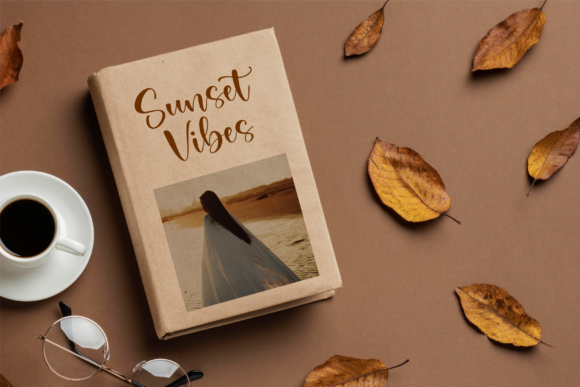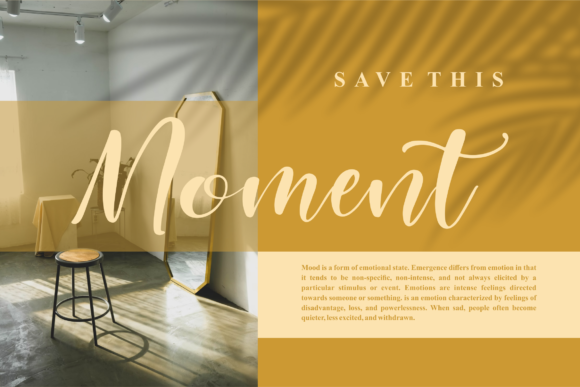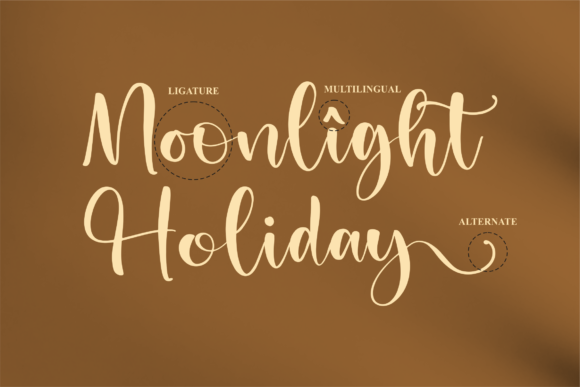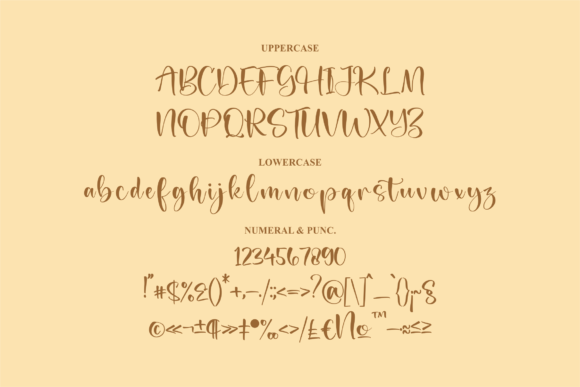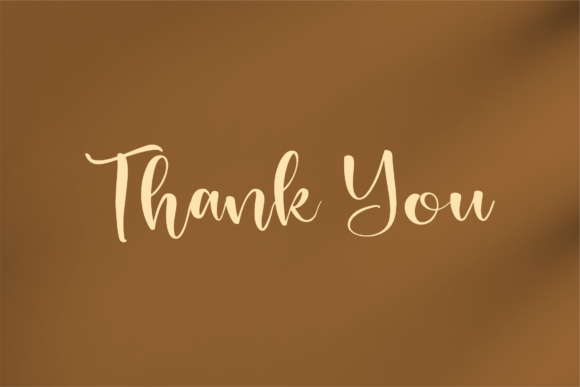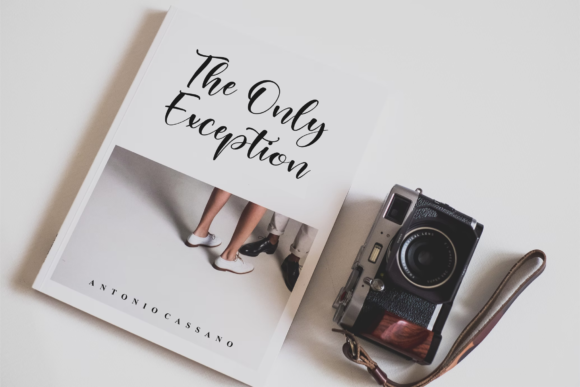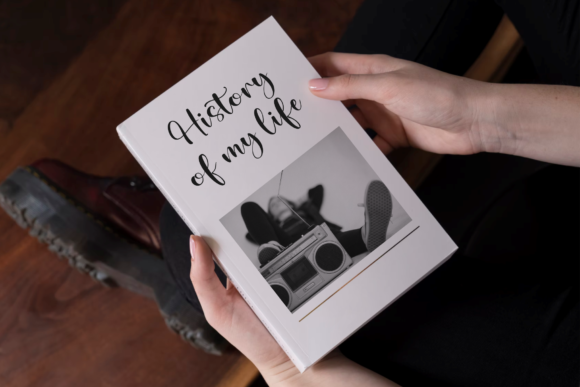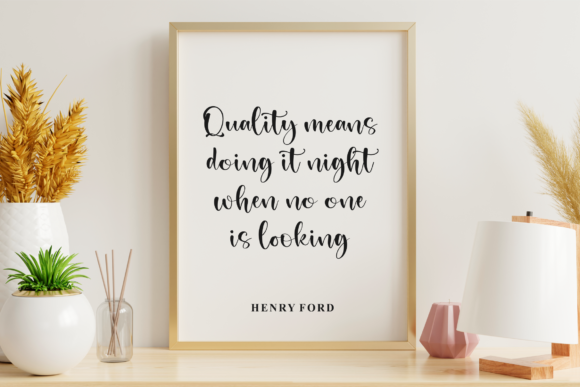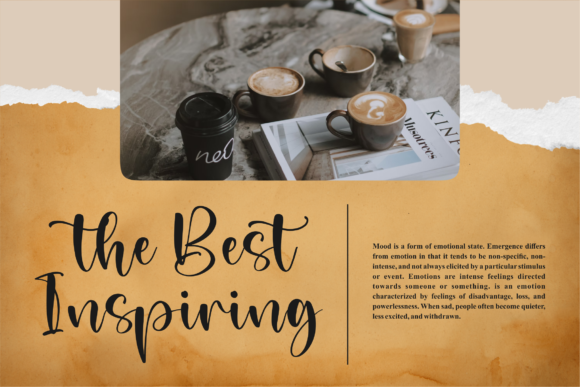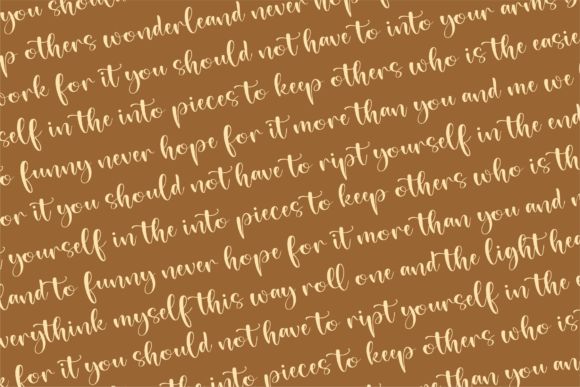
Handly Rottery Font
About Handly Rottery Font
Handly Rottery is a stunning script font that encapsulates beauty, elegance, and versatility. With its captivating curves and exquisite strokes, this font is an ideal choice for a wide array of design projects, adding a touch of sophistication and charm to each creation.
When it comes to crafting a memorable logo, Handly Rottery rises to the occasion, leaving a lasting impression on viewers. Its unique and flowing script brings a sense of authenticity and personality to branding projects, making your identity stand out in a crowded market.
Homeware designs and product packaging are elevated to new heights with Handly Rottery’s graceful lines and intricate details. Whether it’s adorning mugs, labels, or packaging, the font transforms everyday items into works of art that captivate and inspire.
Quotes and posters take on a new level of elegance with Handly Rottery, as each word is carefully crafted to convey meaning and emotion. The font’s versatility ensures that messages are delivered with impact, whether they’re meant to inspire, motivate, or entertain.
From shopping bags to t-shirts, Handly Rottery brings a touch of style and flair to everyday items, turning them into fashion statements that reflect your brand’s aesthetic. Book covers are adorned with the font’s artistic charm, creating anticipation for the stories within.
No project is too small for Handly Rottery – from name cards to shopping bags, the font adds a personal and unique touch that resonates with recipients. Its PUA encoding makes it easy to access a variety of glyphs and swashes, allowing you to customize your designs with ease.
In essence, Handly Rottery is a true asset for any creative endeavor that requires a beautiful script taste. Its versatility, elegance, and accessibility make it a go-to font for logos, branding, packaging, quotes, and much more. With Handly Rottery as part of your design toolkit, your projects are sure to shine with a touch of sophistication and grace.